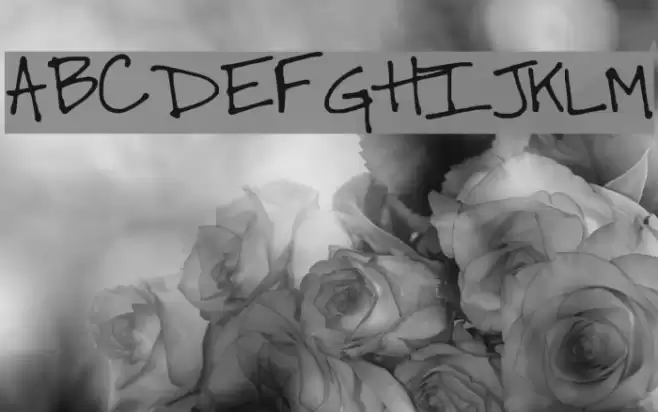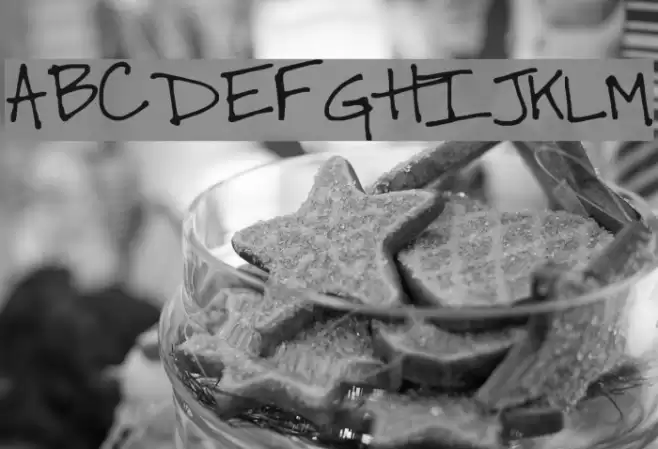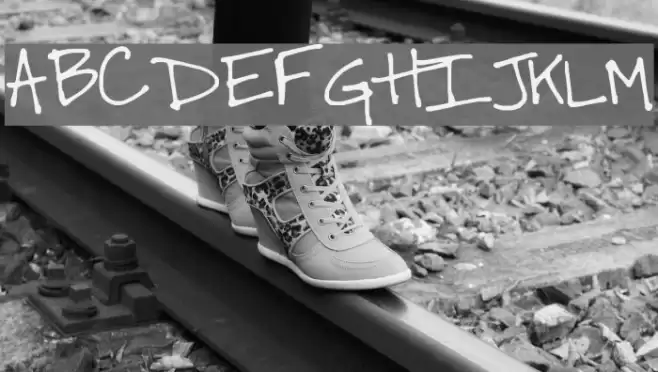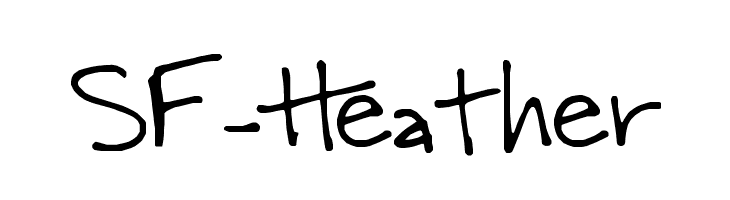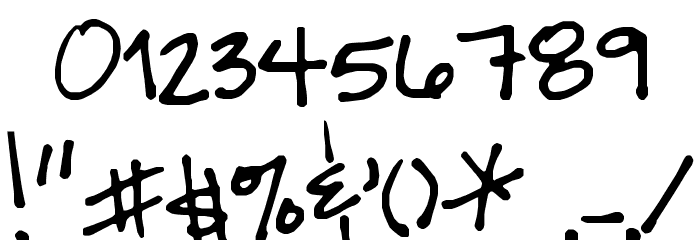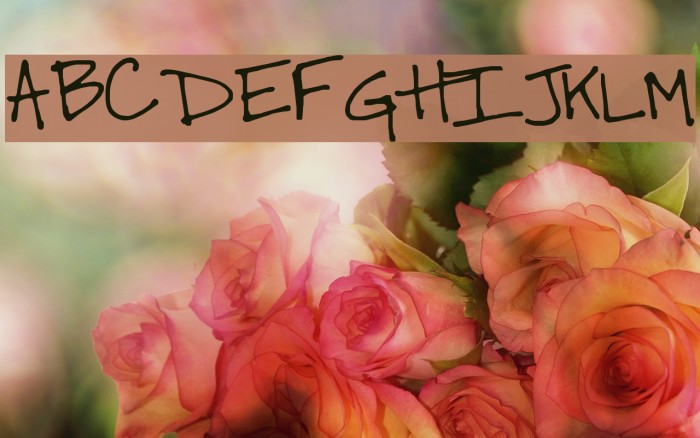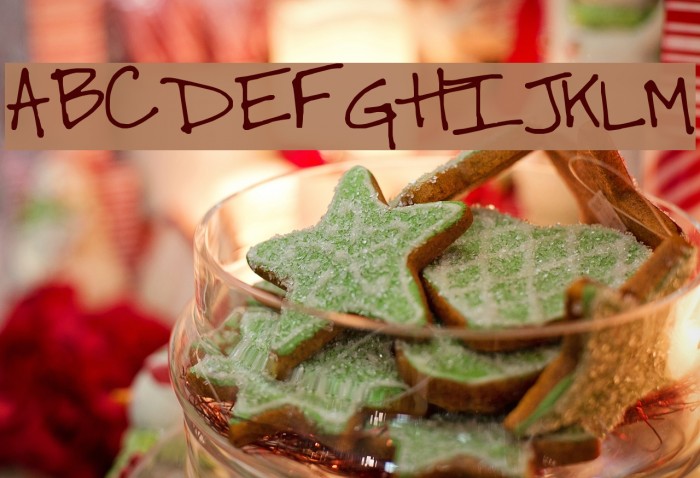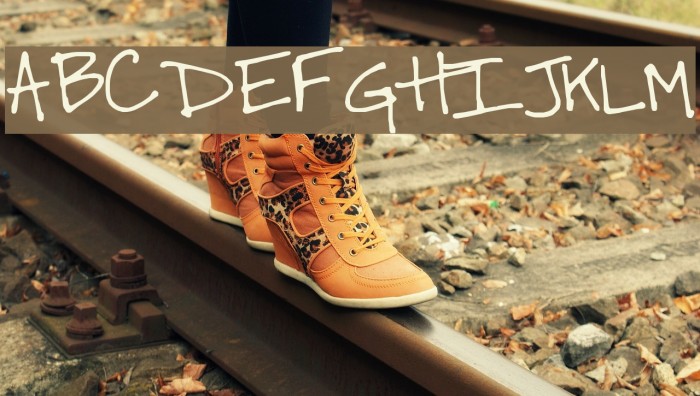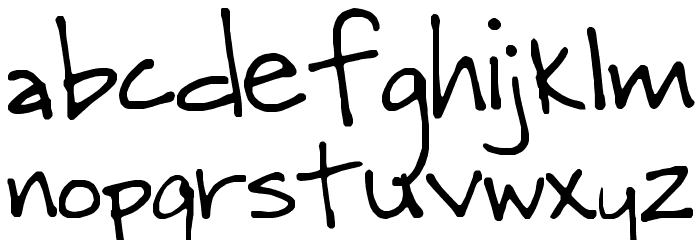
SF-Heather Font
SF-Heather Description
This font exhibits a casual, handwritten style with a playful and informal appearance. The characters are slightly irregular, mimicking the natural flow of handwriting. The strokes are consistent in thickness, giving it a uniform look while maintaining a relaxed vibe. The uppercase and lowercase letters are well-balanced, with a slight slant that adds to the informal aesthetic. The numbers and special characters follow the same style, ensuring cohesion across all elements. This font is ideal for projects that require a personal touch or a friendly, approachable feel.
A casual, handwritten font with a playful and informal style from Uncategorized fonts.
- Proposed Projects: Great for greeting cards, personal notes, informal invitations, and creative projects requiring a personal touch.
- Overall Style: Casual
- Use Case: Headlines, Informal text, Creative projects